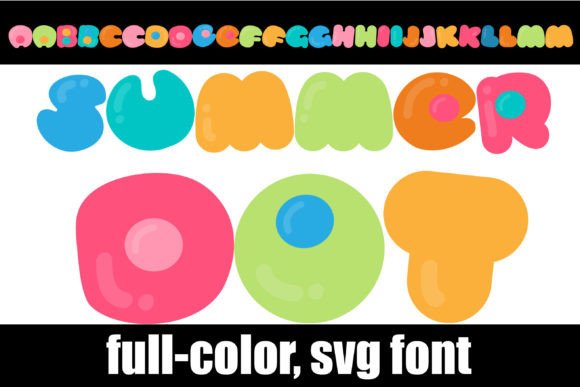
Welcome to the enchanting world of Summer Dot Font, a glorious medley of colors and comic flair, brought to life by the visionary artisans at Illustration Ink. Let your imagination soar with this full-color font, a symphony of bulging, comical lettering, playfully adorned with oversized dots in a vibrant summer palette. Unleash your creativity and give your designs a burst of vivacity, a touch of whimsy.
Transport yourself to a realm where colors dance and play, where each character is a vibrant stroke of genius. Enter the realm of Summer Dot Font, where your artistic dreams take flight. This font is a kaleidoscope of creativity, a symphony of hues. Let your words dance across the page, imbued with a playful spirit.
With Summer Dot Font, you're not just downloading a font; you're embracing a universe of boundless expression. Imagine the possibilities: logos that burst with personality, social media posts that captivate, invitations that shimmer with delight. This font is your gateway to a world of limitless creativity, where your ideas take center stage.
Take a visual voyage through the cosmos with Summer Dot Font. Let your words burst forth in a cosmos of hues. Step into a universe where your creativity knows no bounds. Embrace the magic of Summer Dot Font and let your imagination run wild.